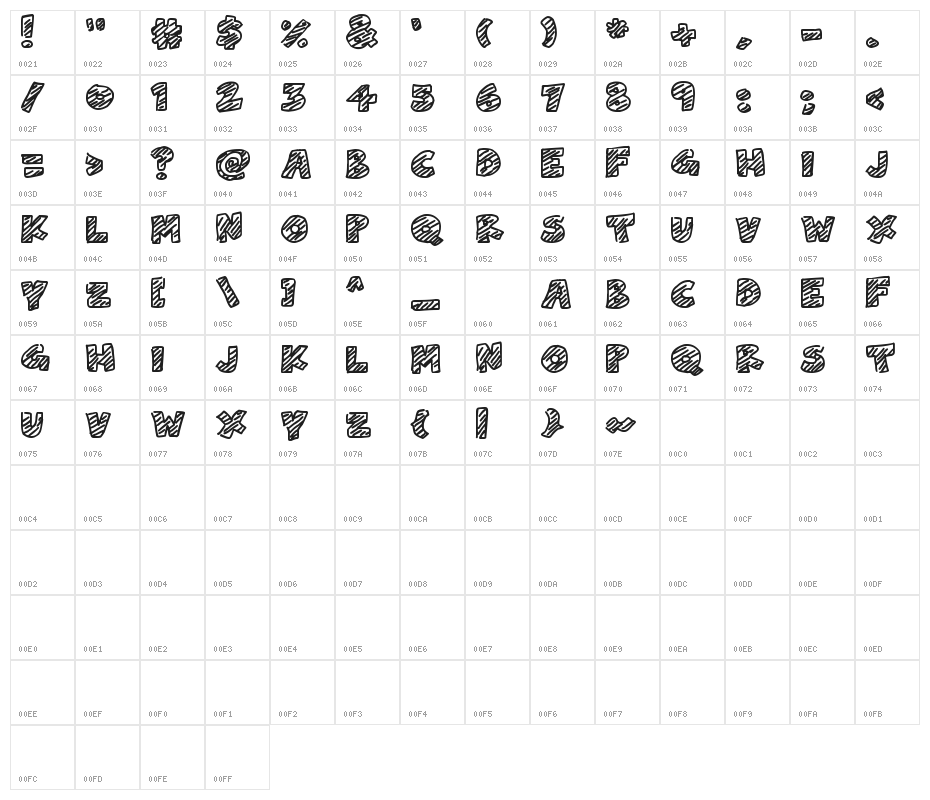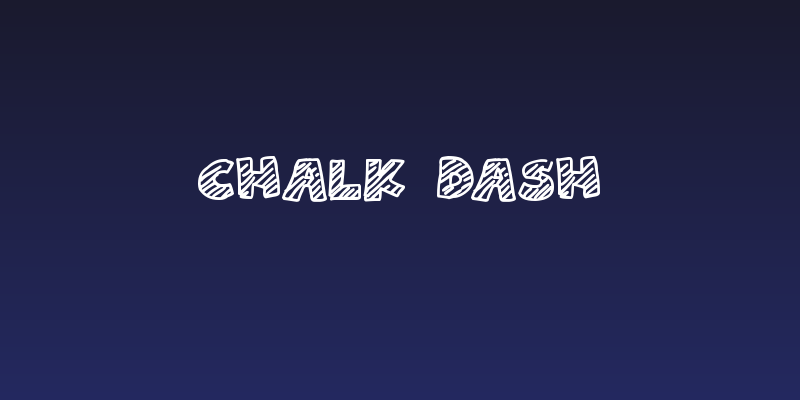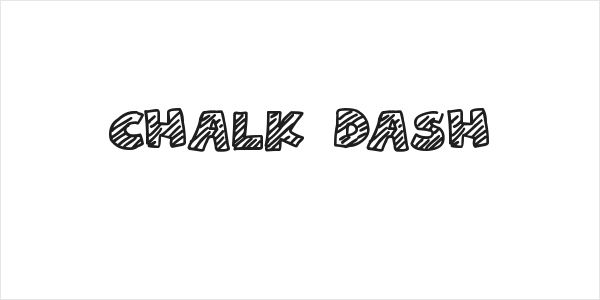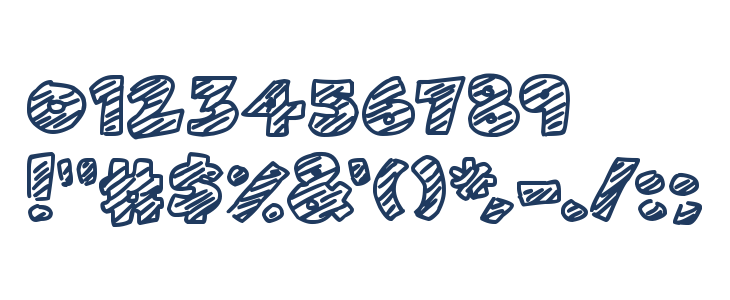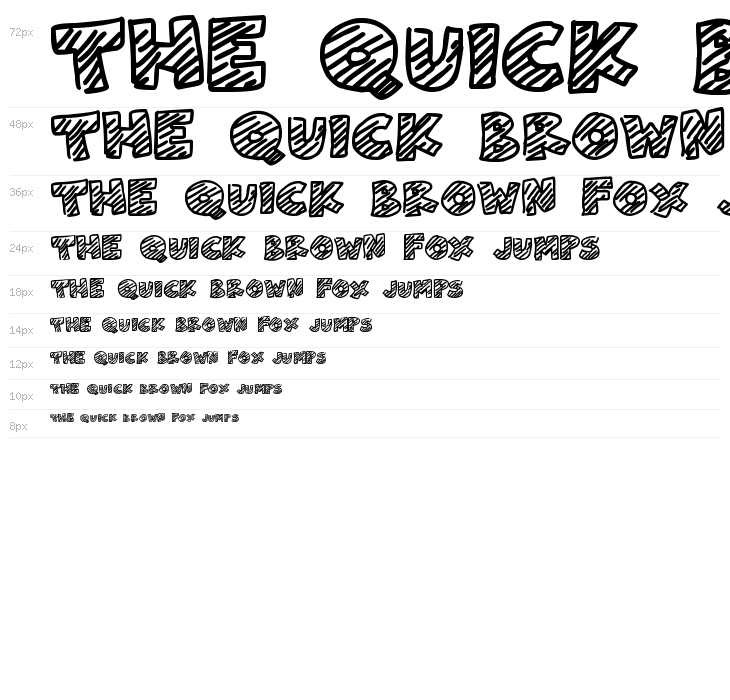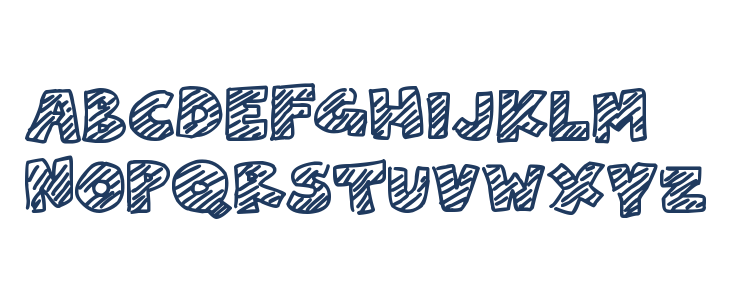
Chalk Dash Font
Chalk Dash Description
This font features a playful and dynamic style, characterized by bold, hand-drawn letters with a chalk-like texture. Each character is filled with diagonal stripes, giving it a lively and energetic appearance. The uppercase and lowercase letters maintain a consistent style, with rounded edges and a slightly irregular form that enhances its casual and informal look. The numbers and special characters follow the same design, ensuring a cohesive appearance across all glyphs. This font is perfect for projects that require a fun and engaging aesthetic.
| Overall Style | Playful, Casual |
| Use Case | Headlines, Posters, Branding |
| Proposed Projects | Ideal for children's book covers, educational materials, playful branding, and event posters. |